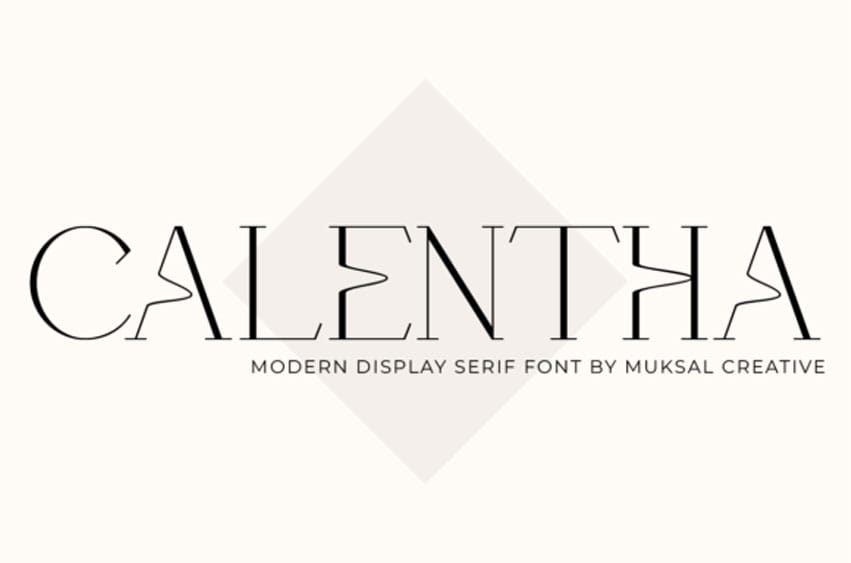
Calentha Font is a harmonious fusion of the traditional serif elements and the modern minimalistic style. The uncluttered and sophisticated design of the Calentha font exudes a suave and professional aura, making it quintessential for various aesthetic endeavors – from revolutionary branding logos to stylishly themed designs.
Every character in Calentha is meticulously constructed, offering a uniform, regular style, brilliantly exhibiting modern sophistication in every curve and line.